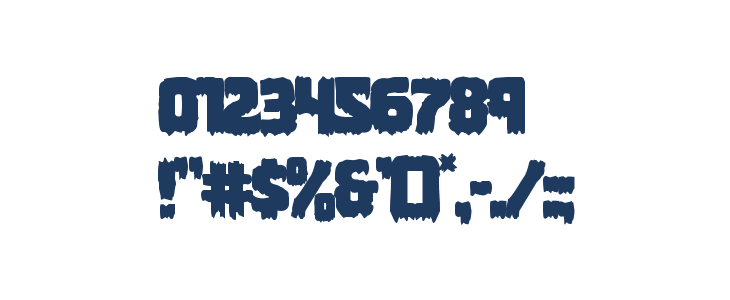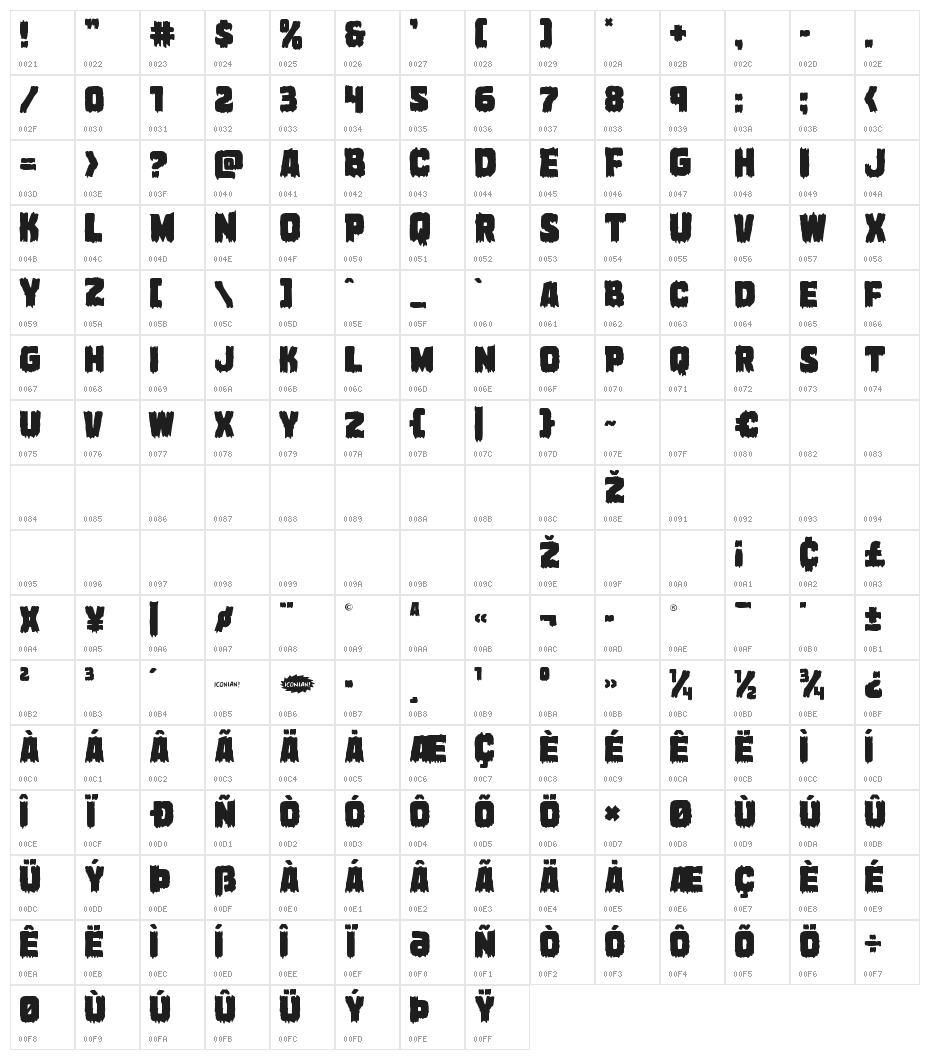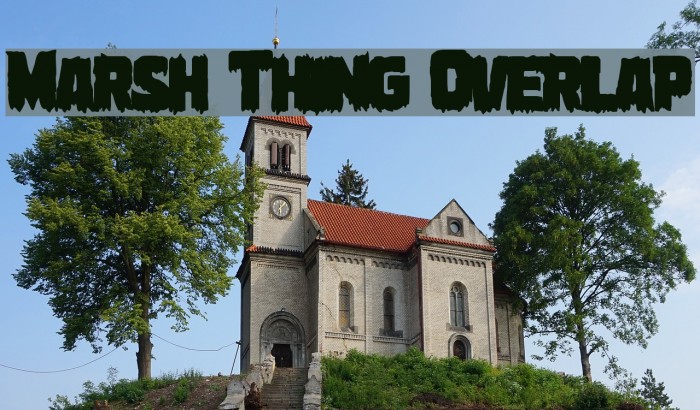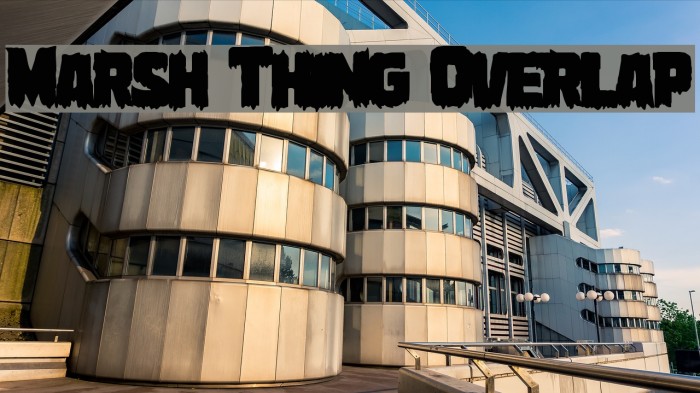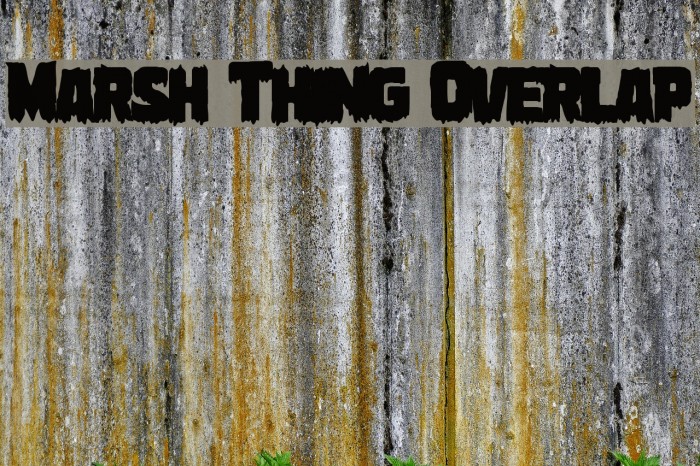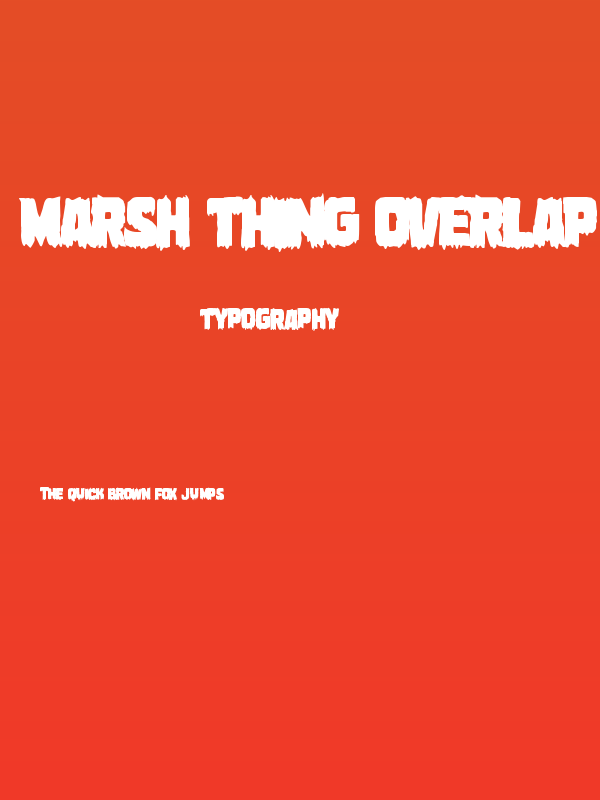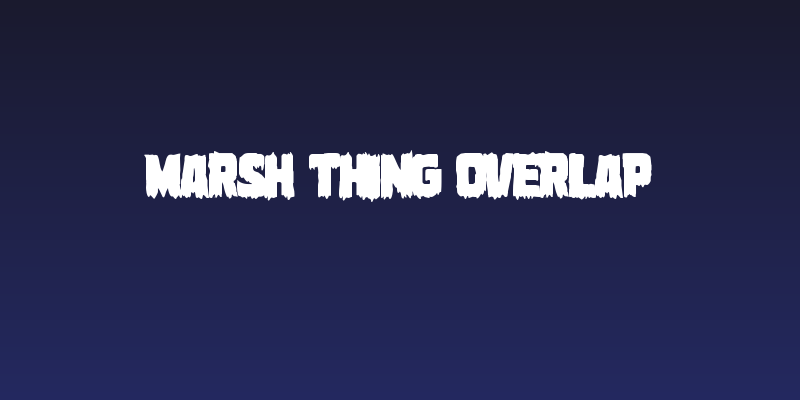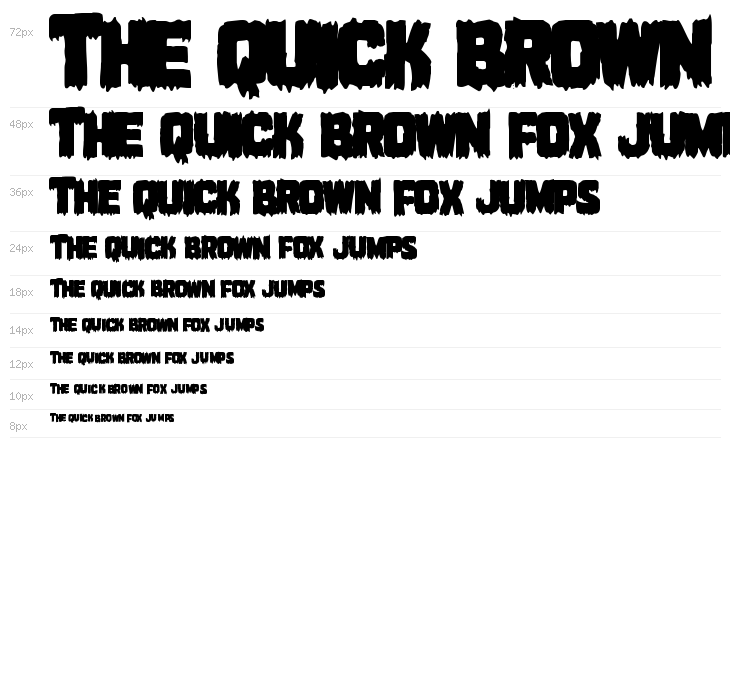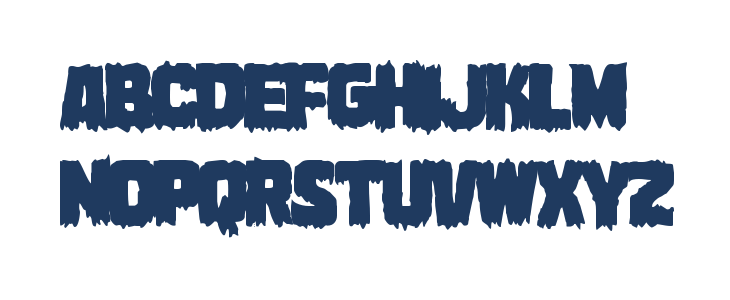
Marsh Thing Overlap Font
Marsh Thing Overlap Description
This font features a bold and rugged design, with each character appearing as if it has been carved out of a solid block. The edges are irregular and jagged, giving it a raw and organic feel. The uppercase and lowercase letters maintain a consistent height, enhancing its blocky appearance. Numbers and special characters follow the same rough style, ensuring uniformity across all glyphs. This font exudes a sense of strength and intensity, making it ideal for eye-catching designs.
| Use Case | Headlines, Posters, Themed Events |
| Proposed Projects | Perfect for horror-themed posters, Halloween invitations, or any project requiring a bold, intense aesthetic. |